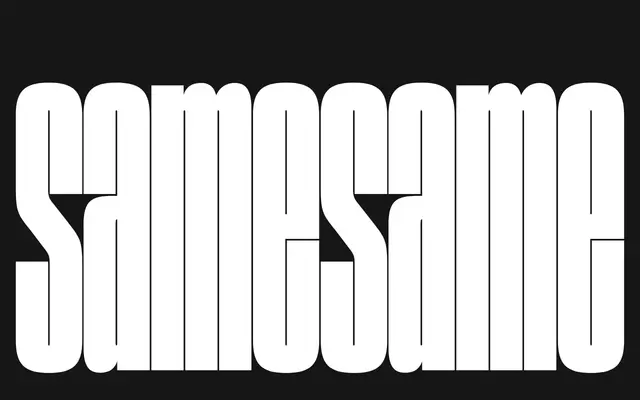
Angela
Newglyph · Ian Party
A neo-grotesque sans by Ian Party from Newglyph, offered in 27 styles with a variable font axis spanning weight and italic.
Designed by Ian Party and published by Newglyph, Angela applies neo-grotesque principles with an emphasis on simplicity and even spacing across 391 glyphs per style. The family ships as a variable font with weight and italic axes alongside 288 individual static styles in OTF, TTF and WOFF2 formats. Latin extended language support covers a broad range of African, European and Pacific Island languages.
The foundry explicitly describes Angela as built on Neo-Grotesque principles, placing it in the tradition of Helvetica and Univers with its emphasis on geometric neutrality and clean forms.